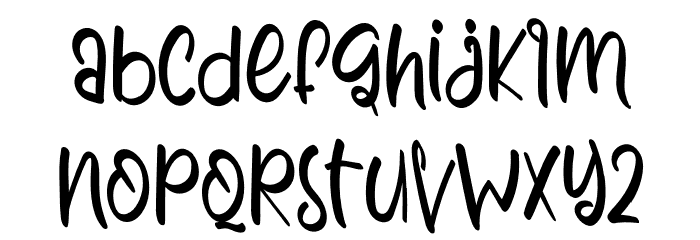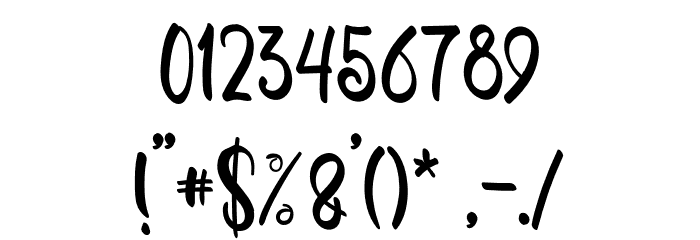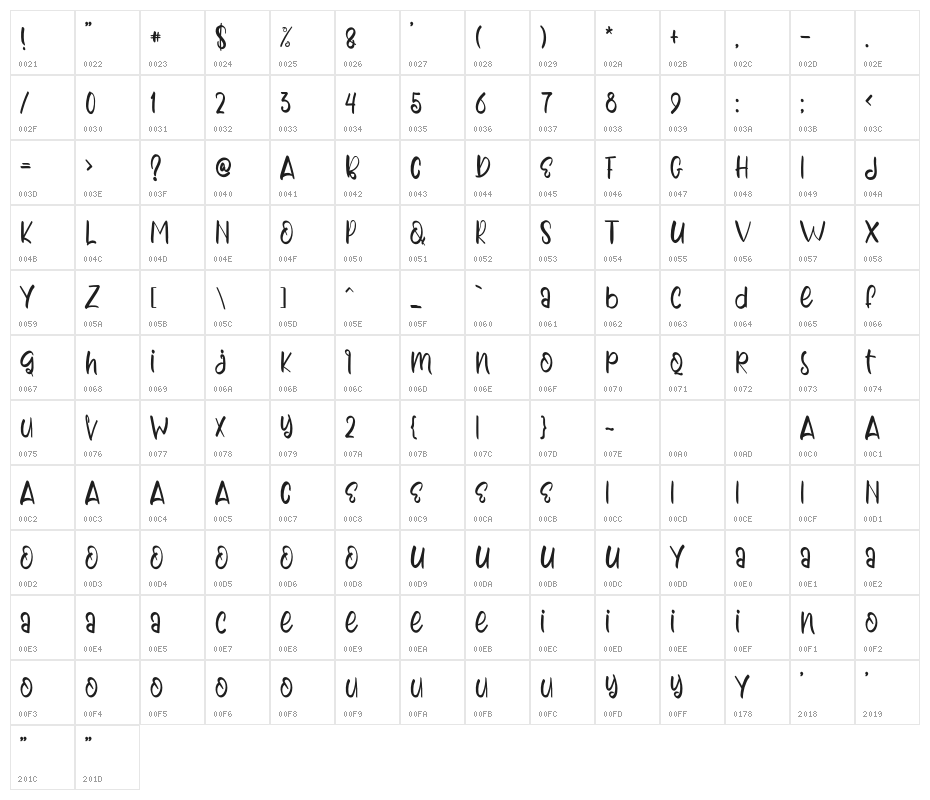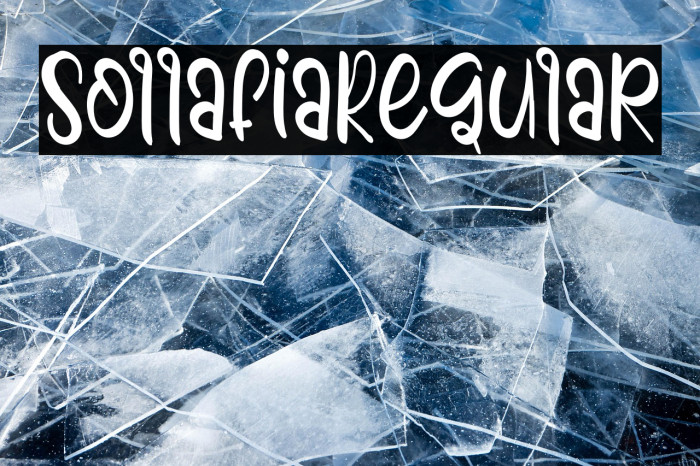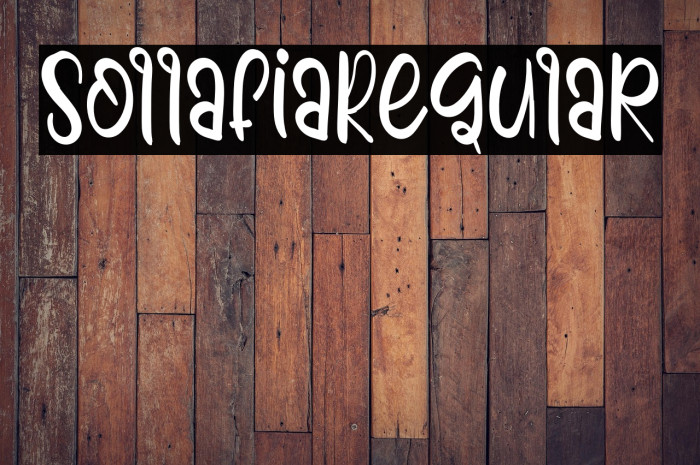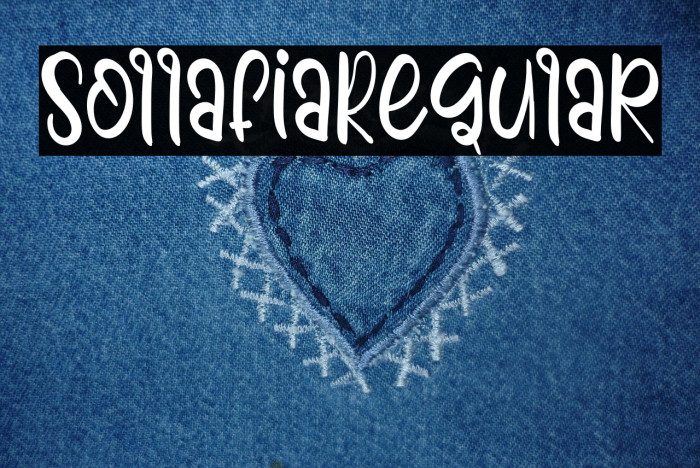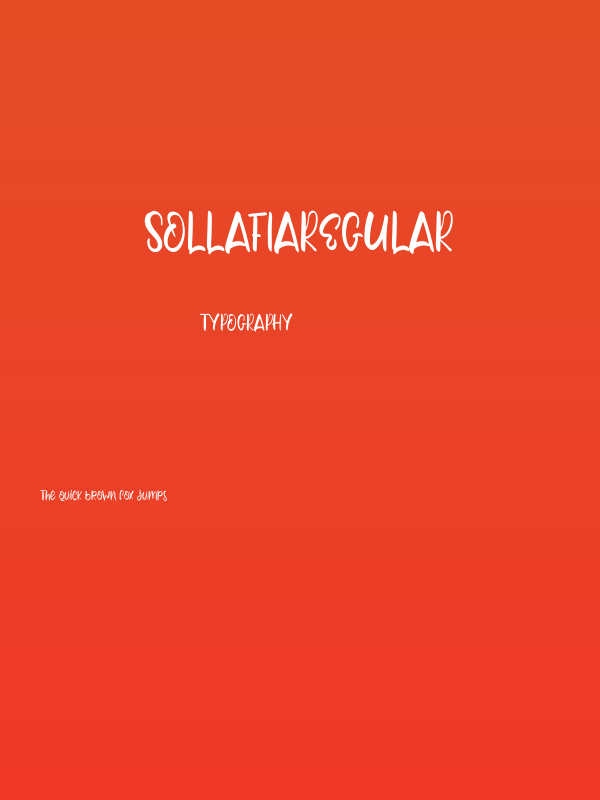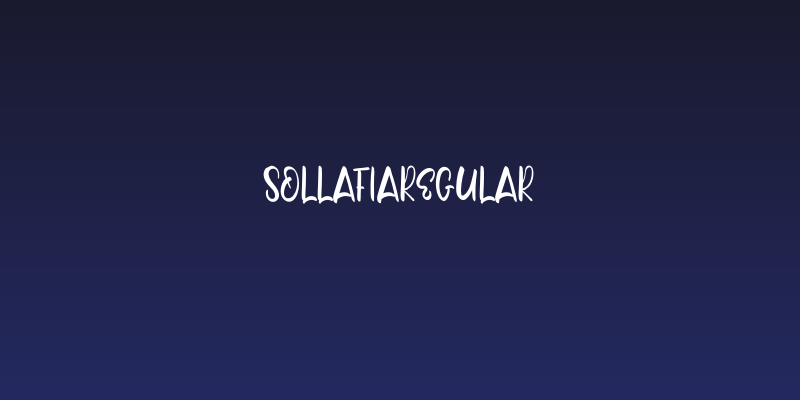
SollafiaRegular Font
This font features a playful and artistic style with a handwritten appearance. The letters are characterized by their flowing curves and unique, whimsical shapes, giving it a lively and dynamic feel. The uppercase letters are bold and expressive, while the lowercase letters maintain a consistent style with slightly exaggerated loops and strokes. The numbers and special characters follow the same playful design, making them stand out. This font is ideal for projects that require a personal touch or a creative flair, such as invitations, greeting cards, or artistic branding.
A playful, handwritten font with expressive curves and whimsical shapes.
- Proposed Projects: Ideal for invitations, greeting cards, artistic branding, and creative projects.
- Category: Handwritten
- Use Case: Logos, Headlines, Artistic projects